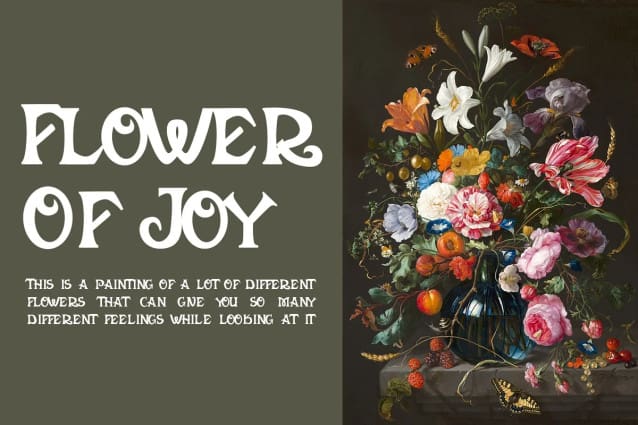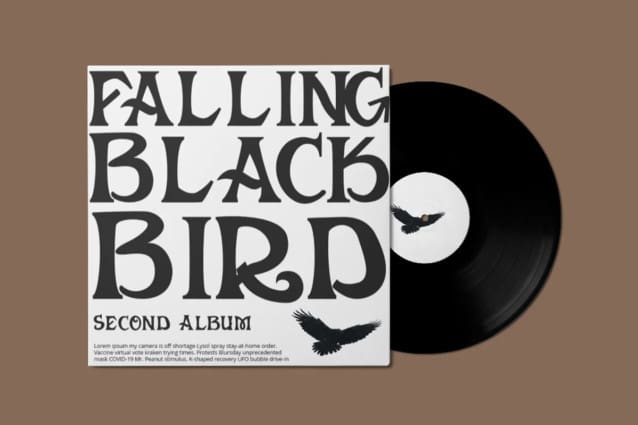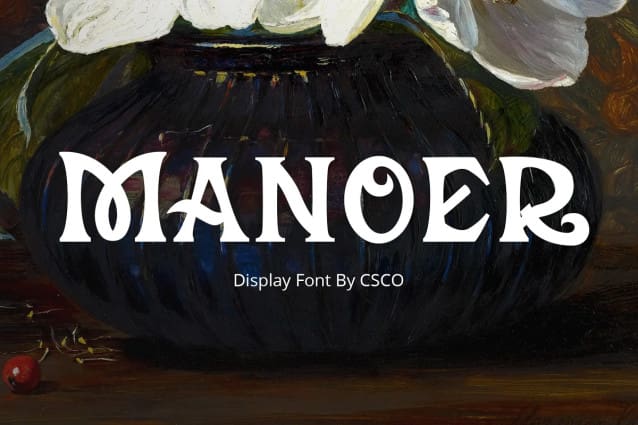
Manoer Font
Manoer  Font – Display Serif Font: Uniquely Eye-Catching. Funky and Fresh Design: Manoer Font – Display Serif is a font that brings a funky twist to traditional serif. It’s perfect for unique, eye-catching displays. This font adds a playful charm to any project.
Ideal for Creative Displays: With its unique flair, Manoer excels in creative display needs. It captures attention in advertising, posters, and more. This font is a top choice for making a bold statement.
Versatile for Various Media: Manoer’s distinctive style is versatile across digital and print platforms. It adapts well to various backgrounds and color schemes. This makes it a valuable asset for diverse design projects.